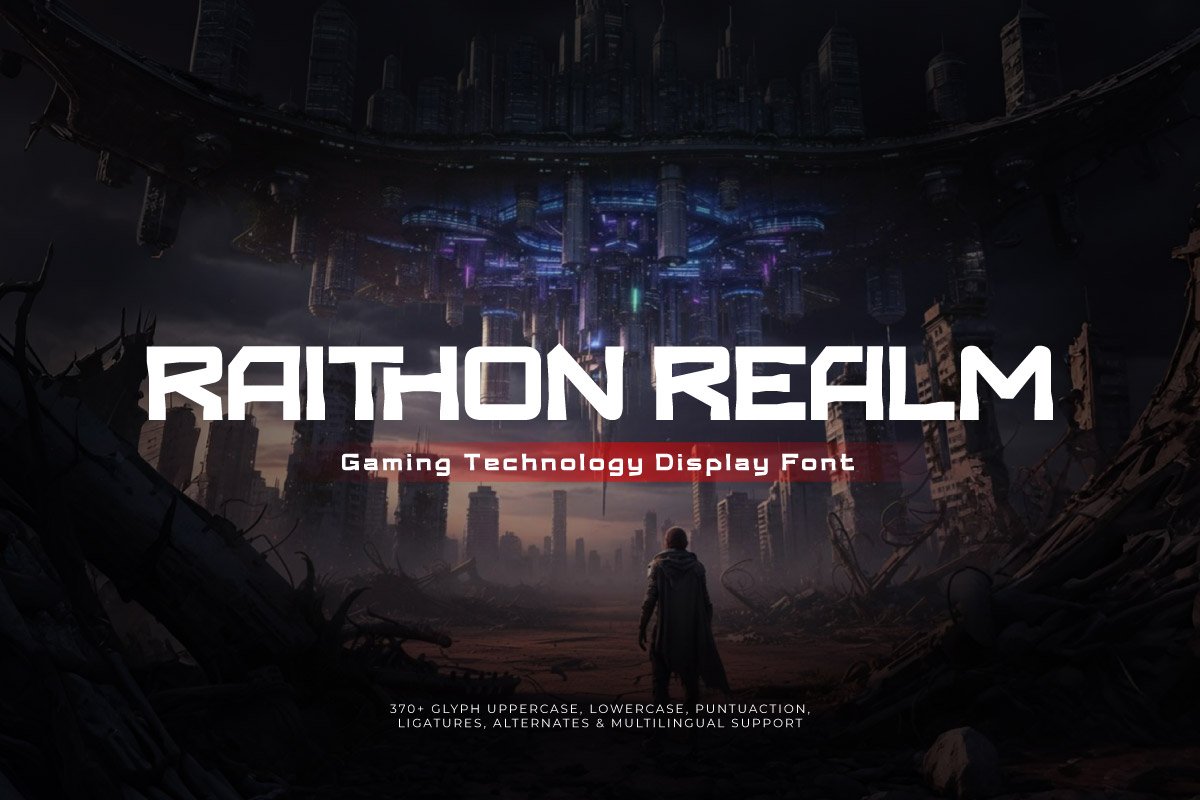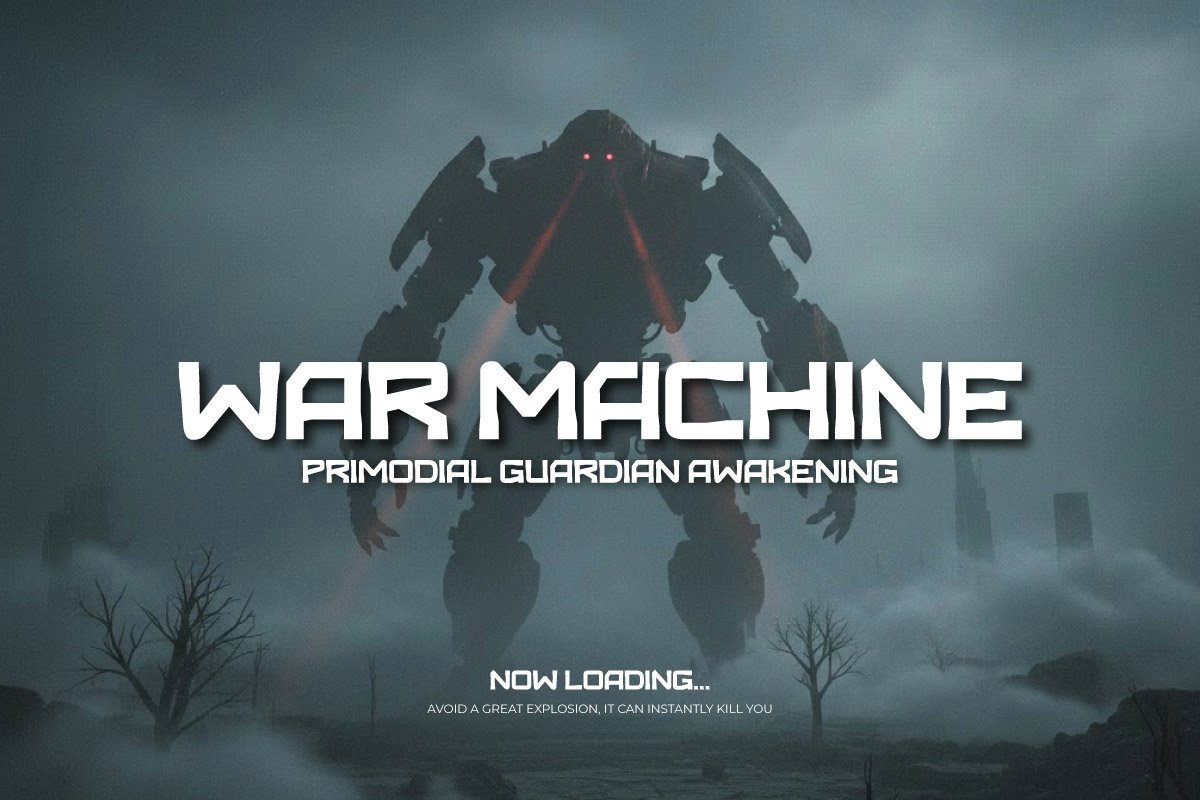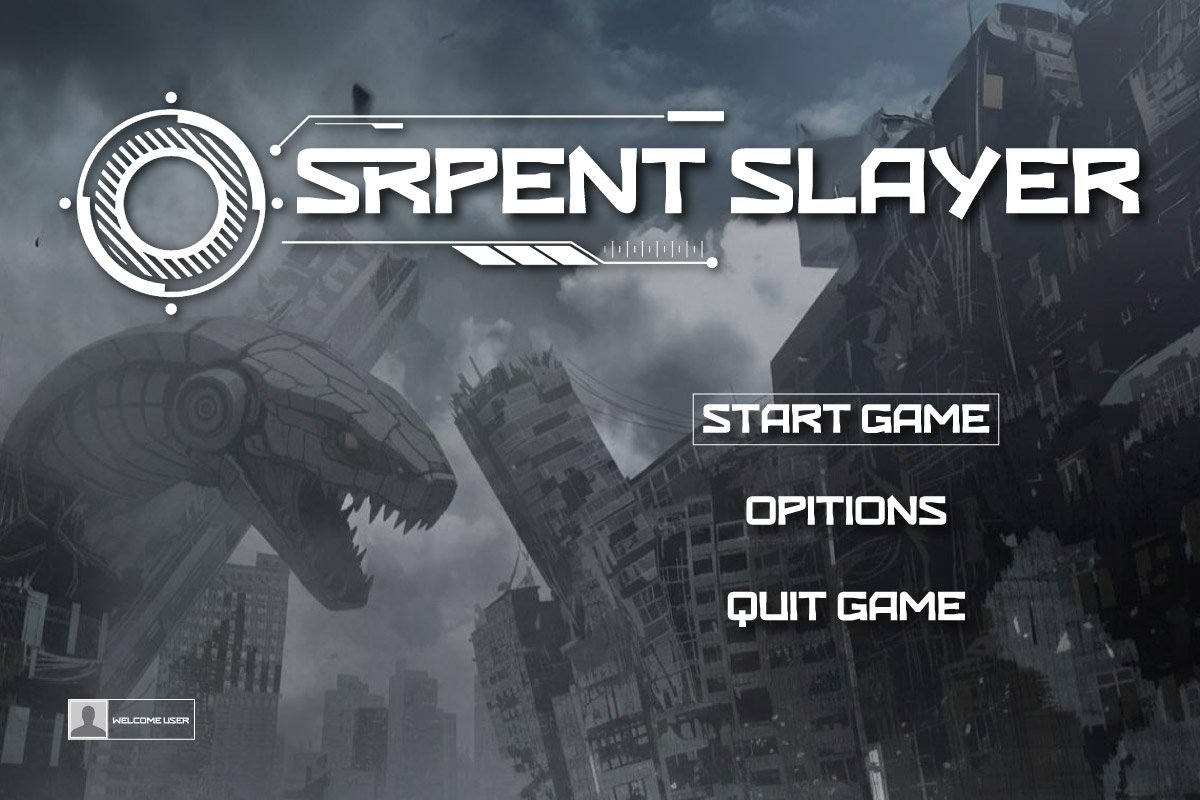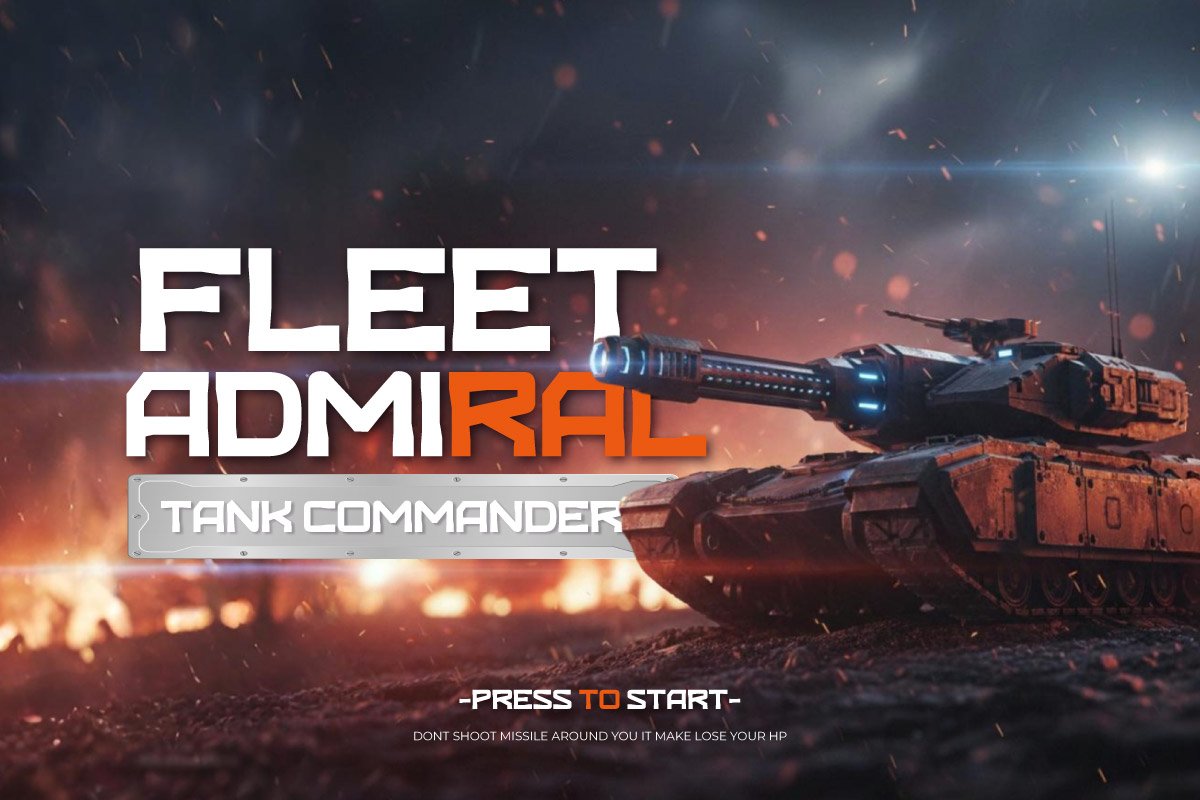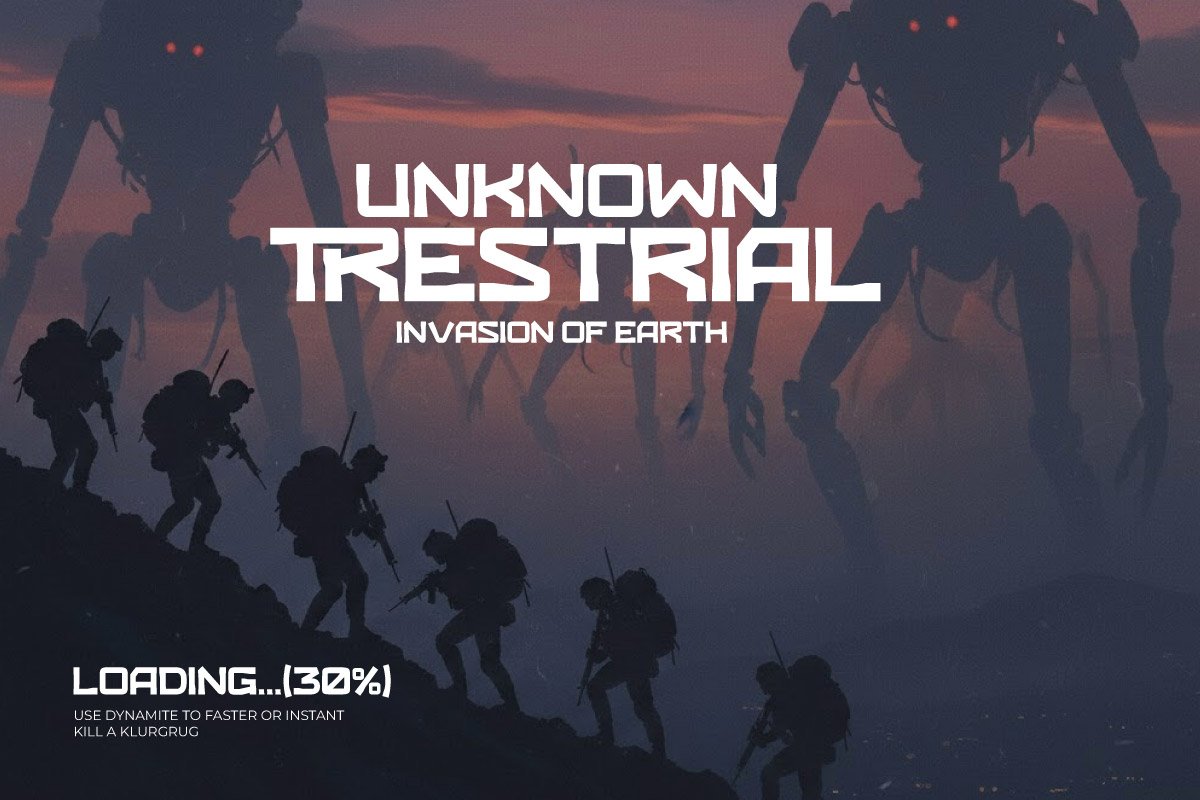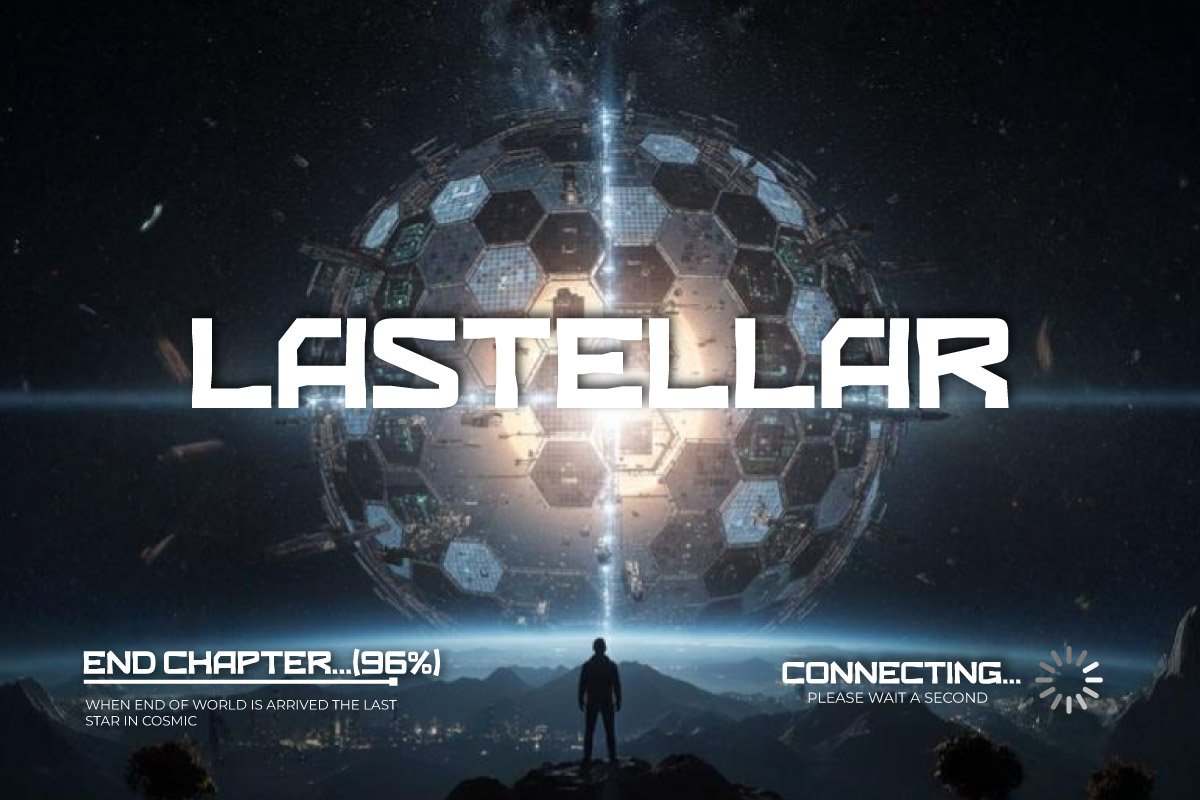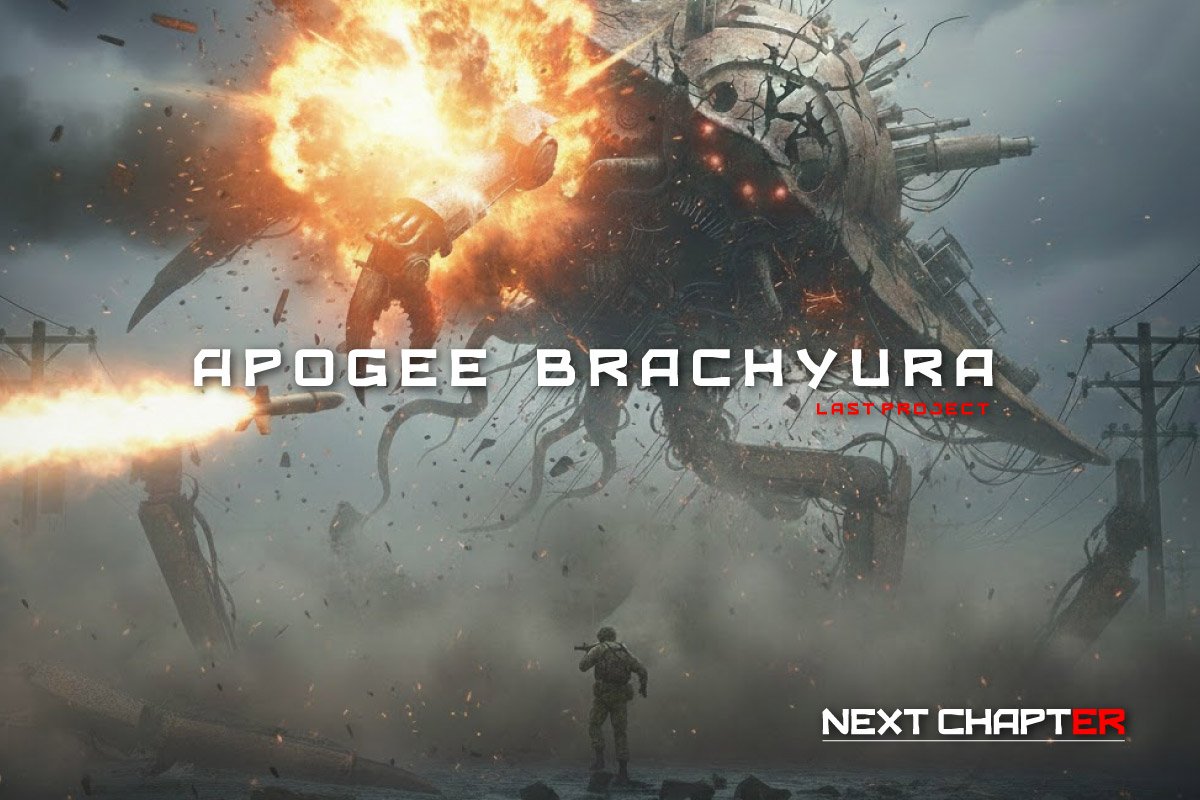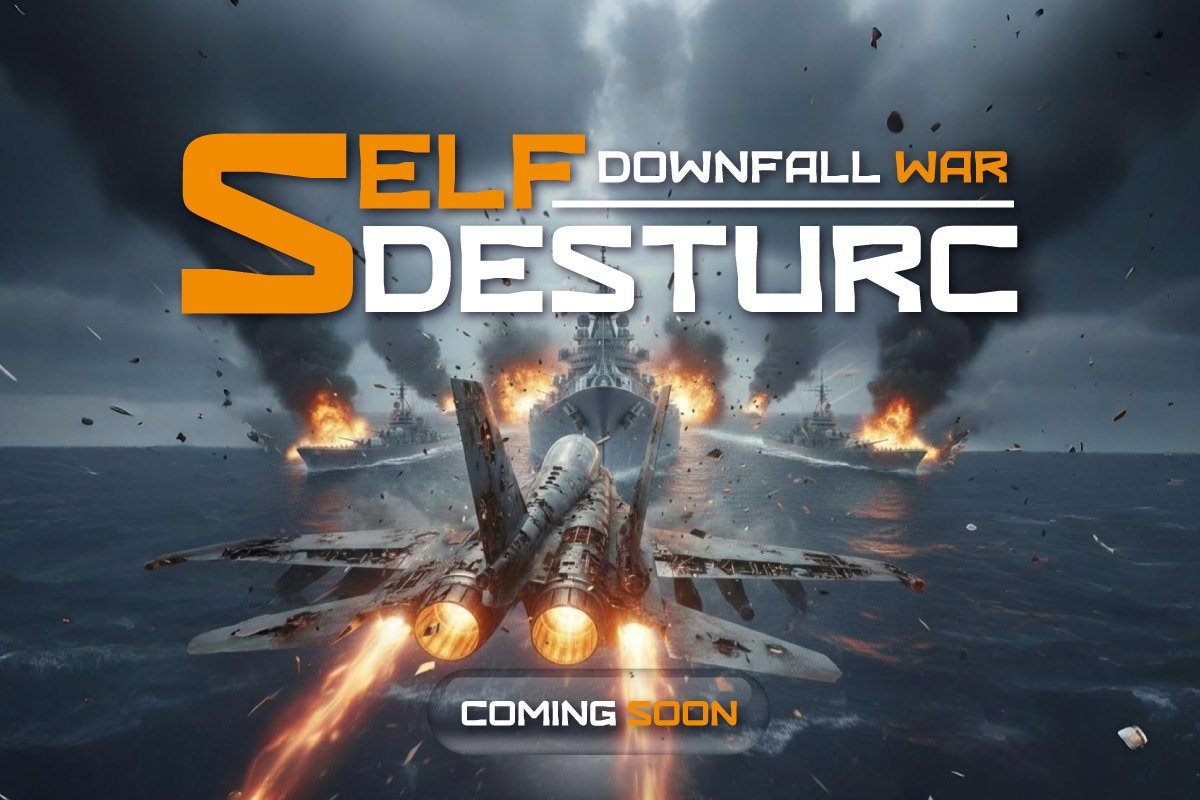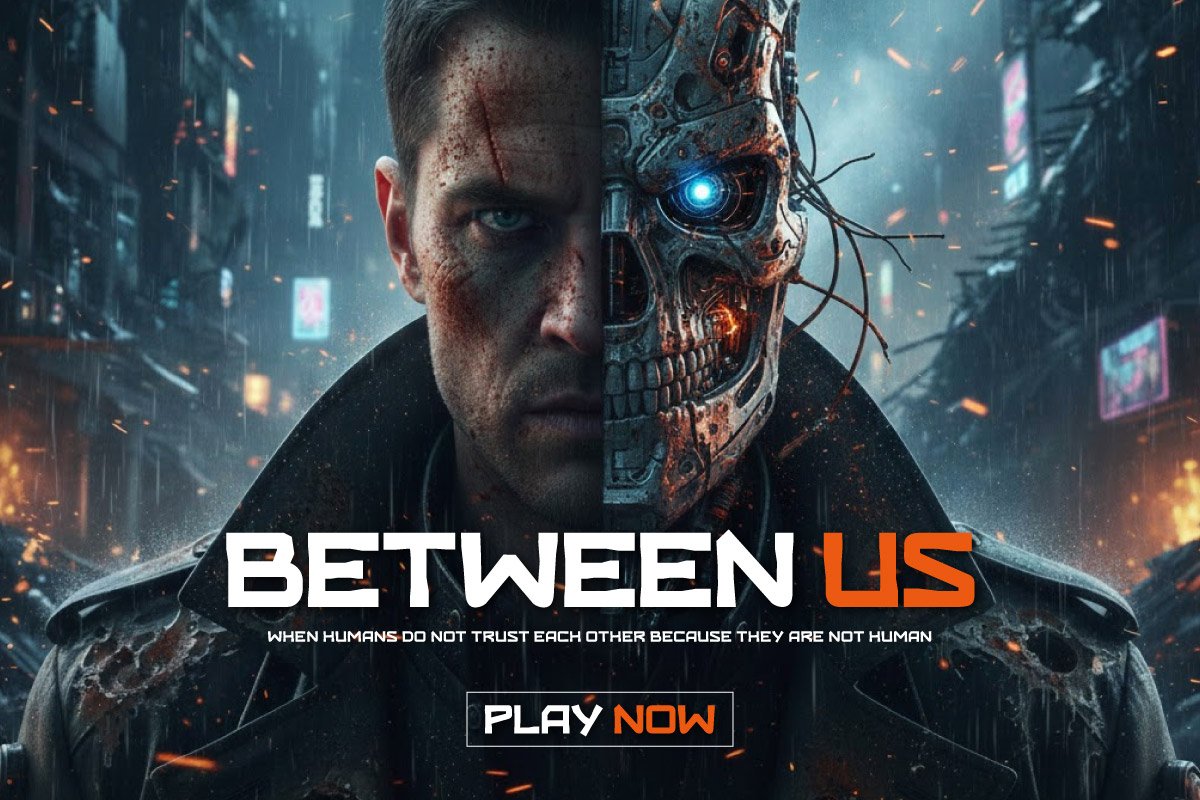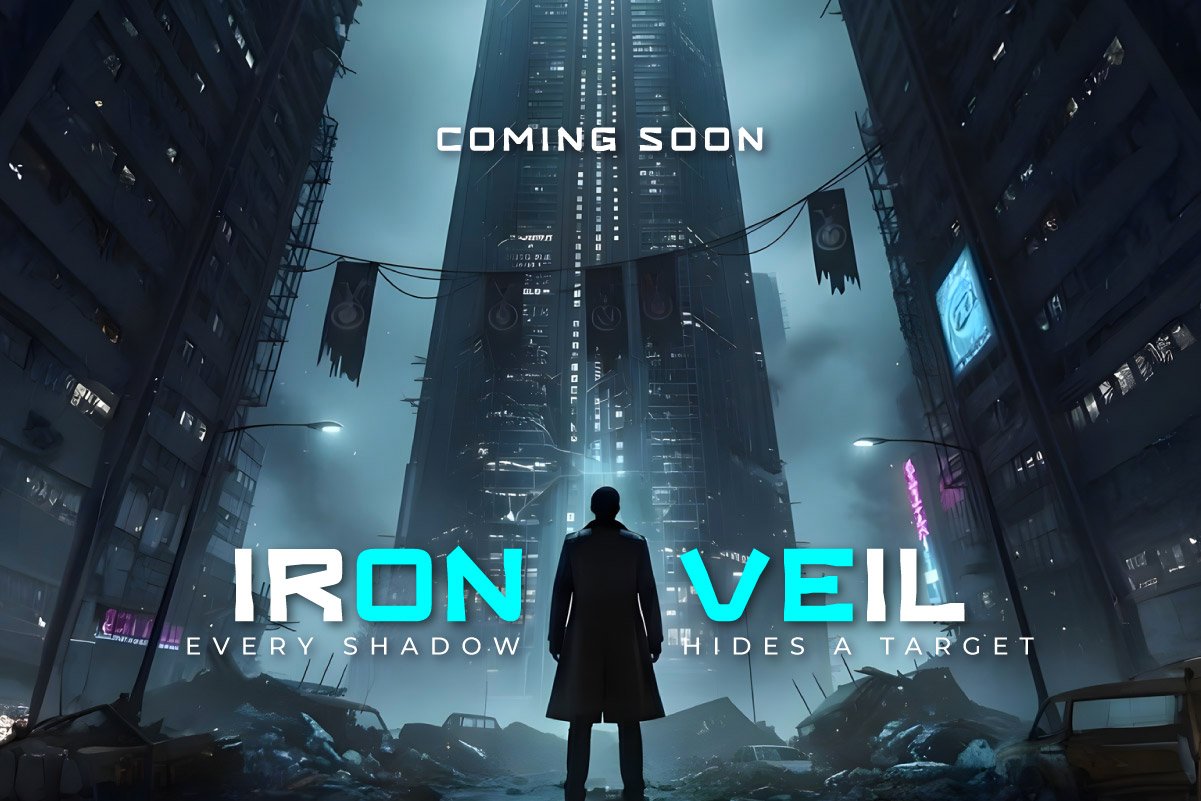
Raithon Realm – Gaming Technology Display Font
Raithon Realm is a Gaming Technology Font typeface designed with a sharp, futuristic military aesthetic. This font features geometric letterforms inspired by the precision of weapon technology and shooter game interfaces. Its solid visual characteristics make it an ideal choice for Action FPS game titles, tech device designs, and visual identities that prioritize a tactical and modern feel.
The design structure adopts a Military Sci-Fi anatomy with precise angular cuts to ensure optimal readability. This letter style is highly effective for Futuristic Weapon UI elements, heads-up display (HUD) graphics, and cinematic posters requiring a sharp information display. Raithon Realm helps designers create a consistent high-tech atmosphere across various digital and print media.
As a Shooter Game Technology Font, Raithon Realm offers a functional typography solution for game developers and graphic designers in the creative industry. Its character support covers the needs of projects demanding visual accuracy and a sophisticated feel in every detail. This font is a professional choice for strengthening visual concepts themed around military innovation, esports, and future-tech content.